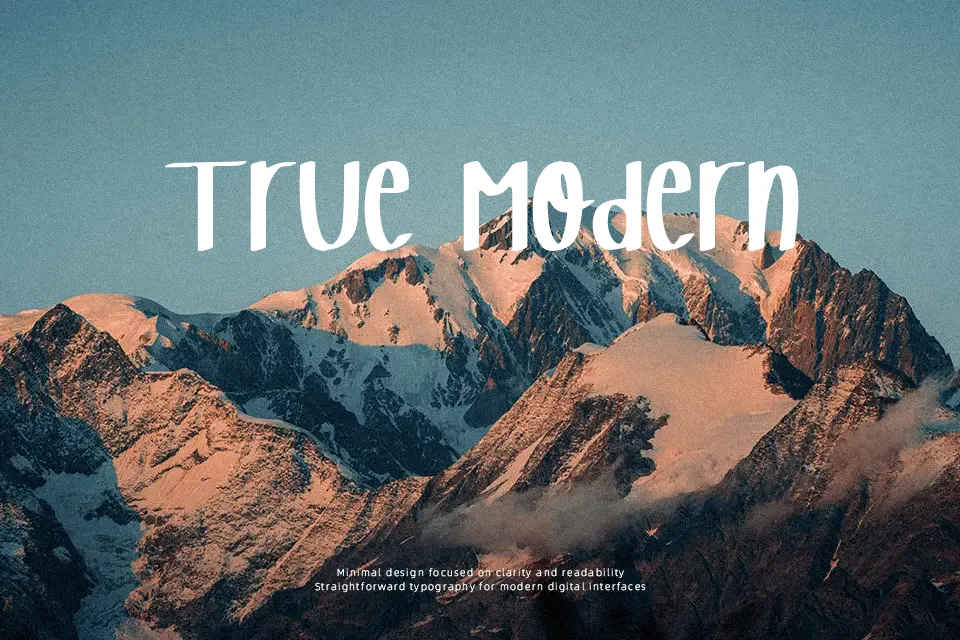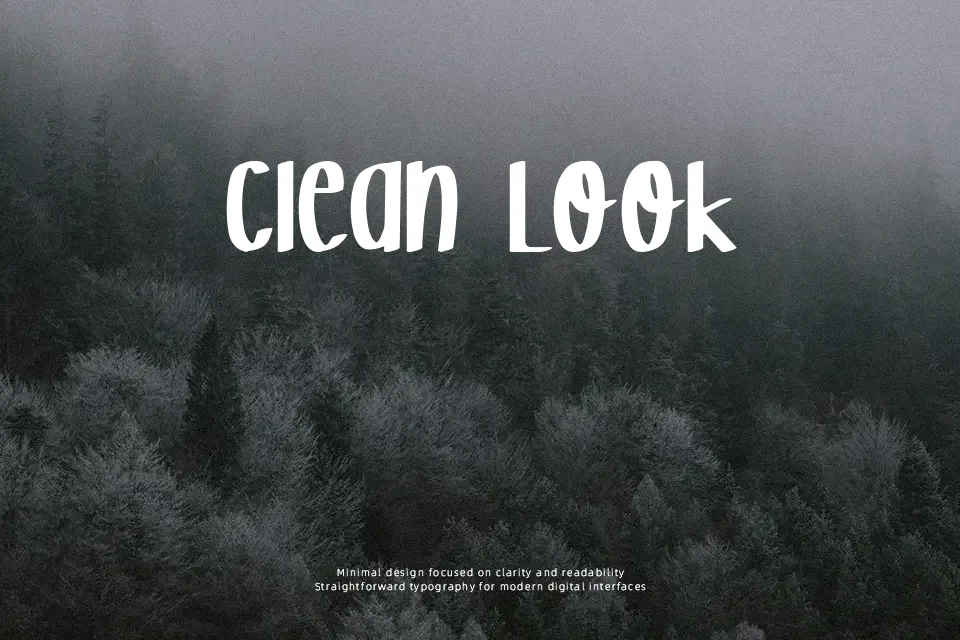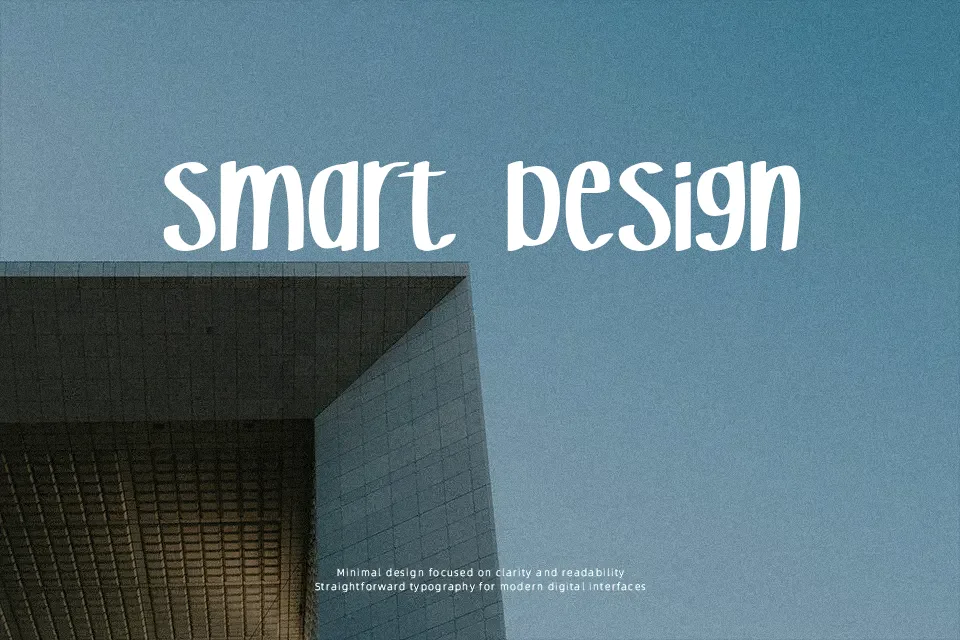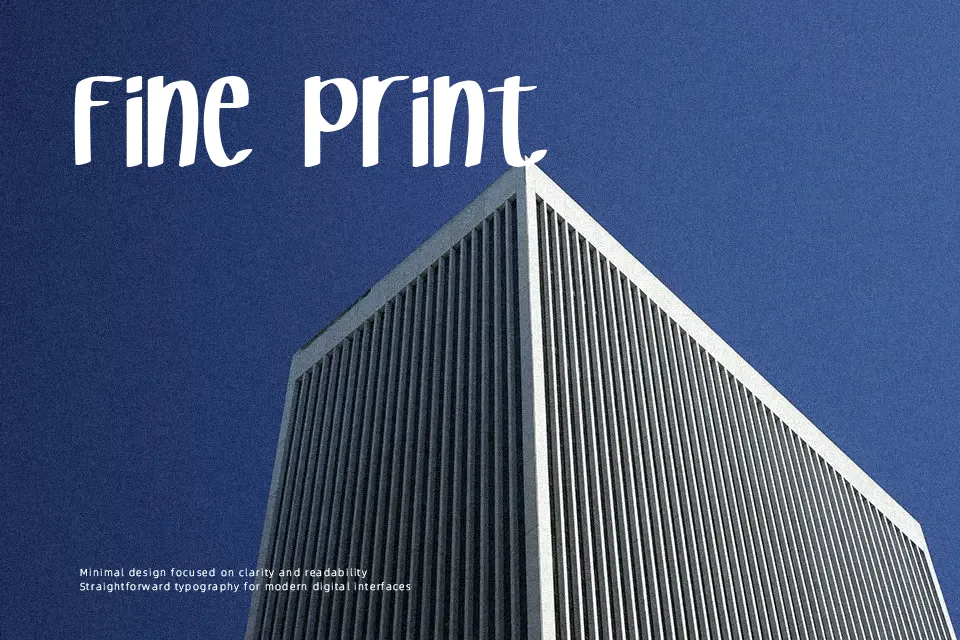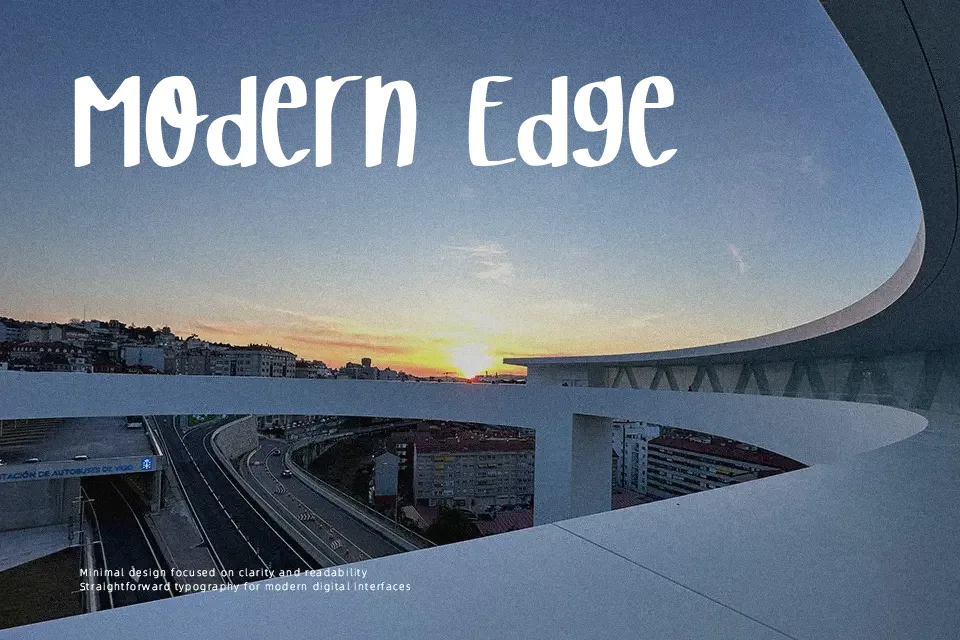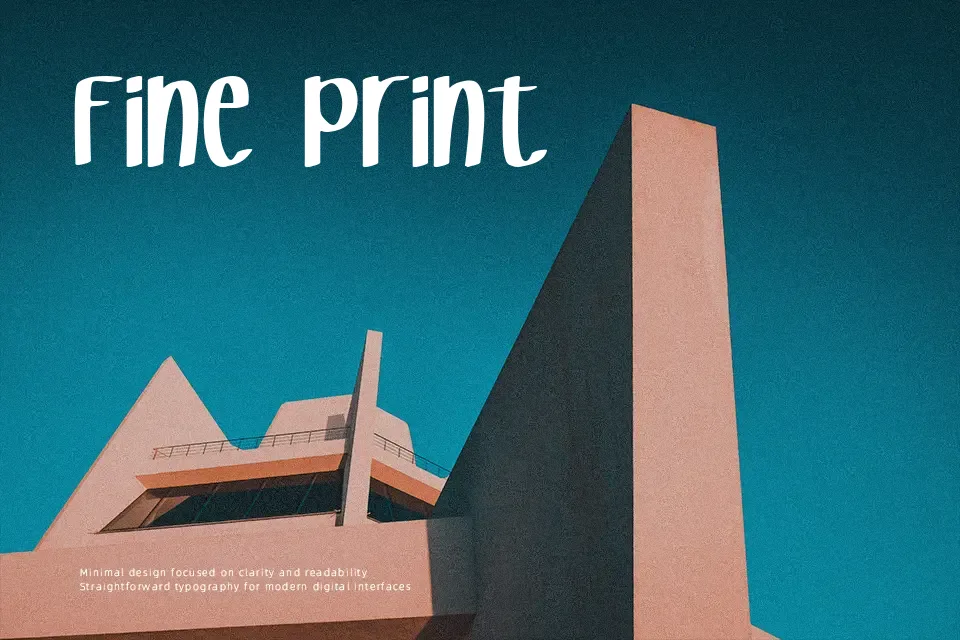
Butter Spoky Font
Butter Spoky leans into a chunky, rounded cartoon style, with thick strokes and slightly irregular shapes that read as lively rather than messy. The tall uppercase letters and more even lowercase give it a strong blocky rhythm, so headlines and short phrases pop quickly at a glance. It works especially well on kids’ book covers, playful product packaging, classroom posters, birthday party graphics, and logos that need a fun, approachable tone instead of a corporate voice. Because of its weight and monospaced feel, it can look cramped in long paragraphs or small UI text, and the characterful forms may clash with minimalist brands that rely on super-clean geometry. If you like bouncy cartoon and hand-drawn display fonts, this sits in the same family but with a slightly more solid, chunky presence.
children’s book covers and titles
playful logos and wordmarks
party invitations and event posters
fun social media graphics for kids’ brands
long paragraphs or dense body copy
serious corporate or editorial documents
minimalist tech or luxury branding
small UI labels or fine print text
Perfect for branding, kids, and logo, with a creative and cartoon style.